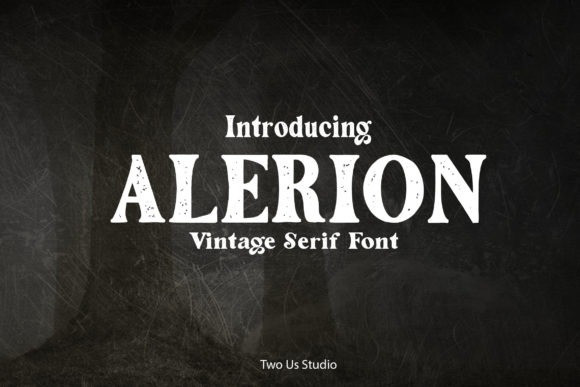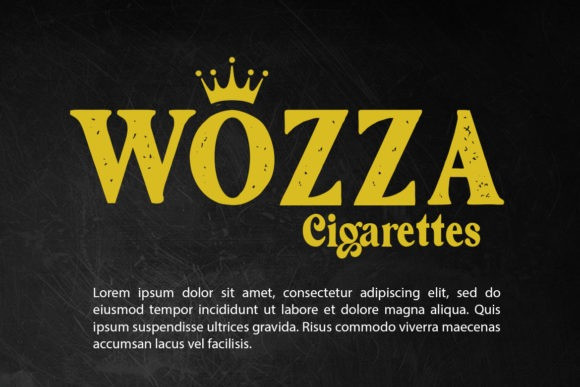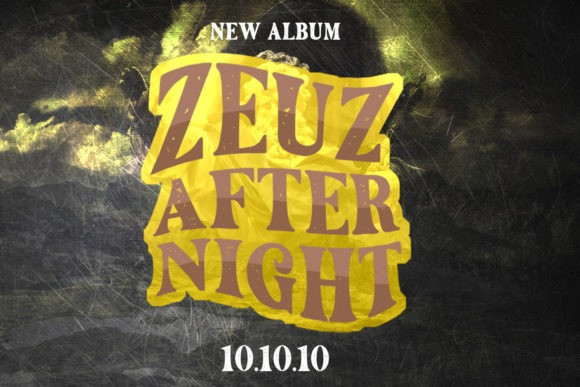
Alerion Font
Alerion is a vintage serif font. This minimalist and clean font can easily become your favorite. It can be used for books, magazines, social media posts, invitations, and so much more! So add this to your creations and take your designs to the next level!